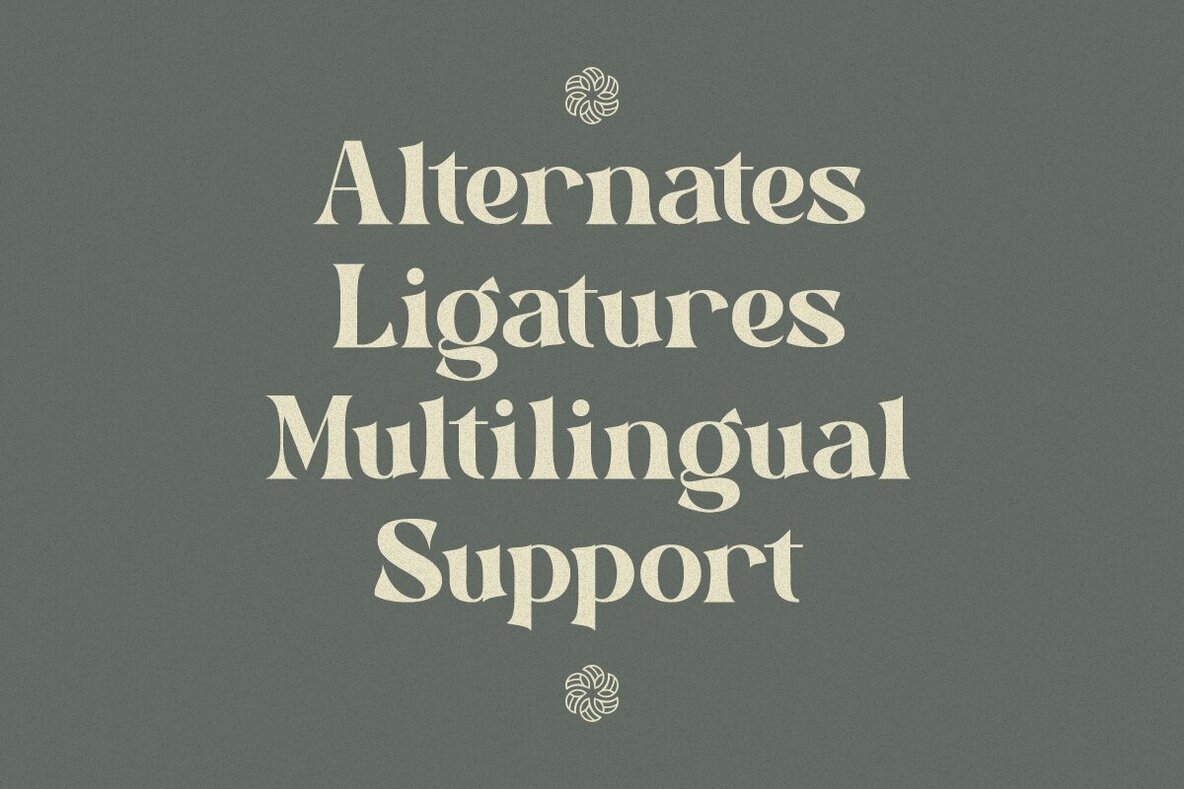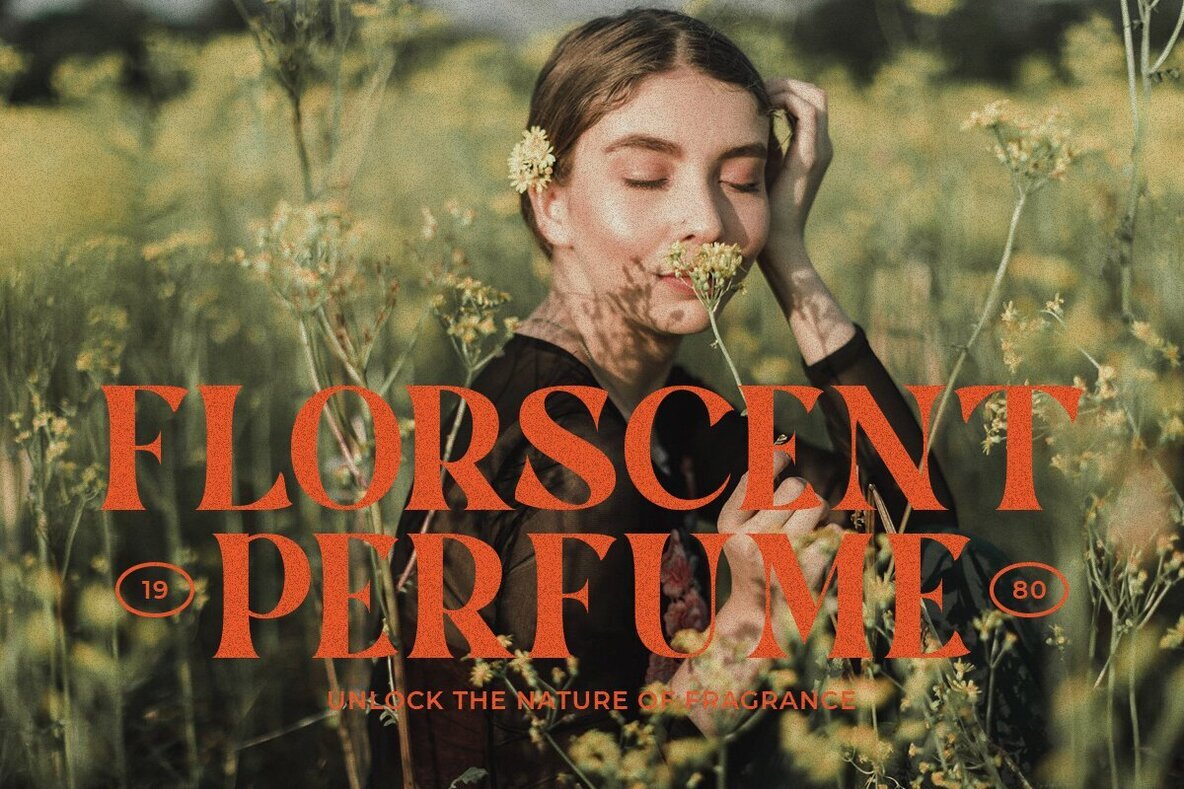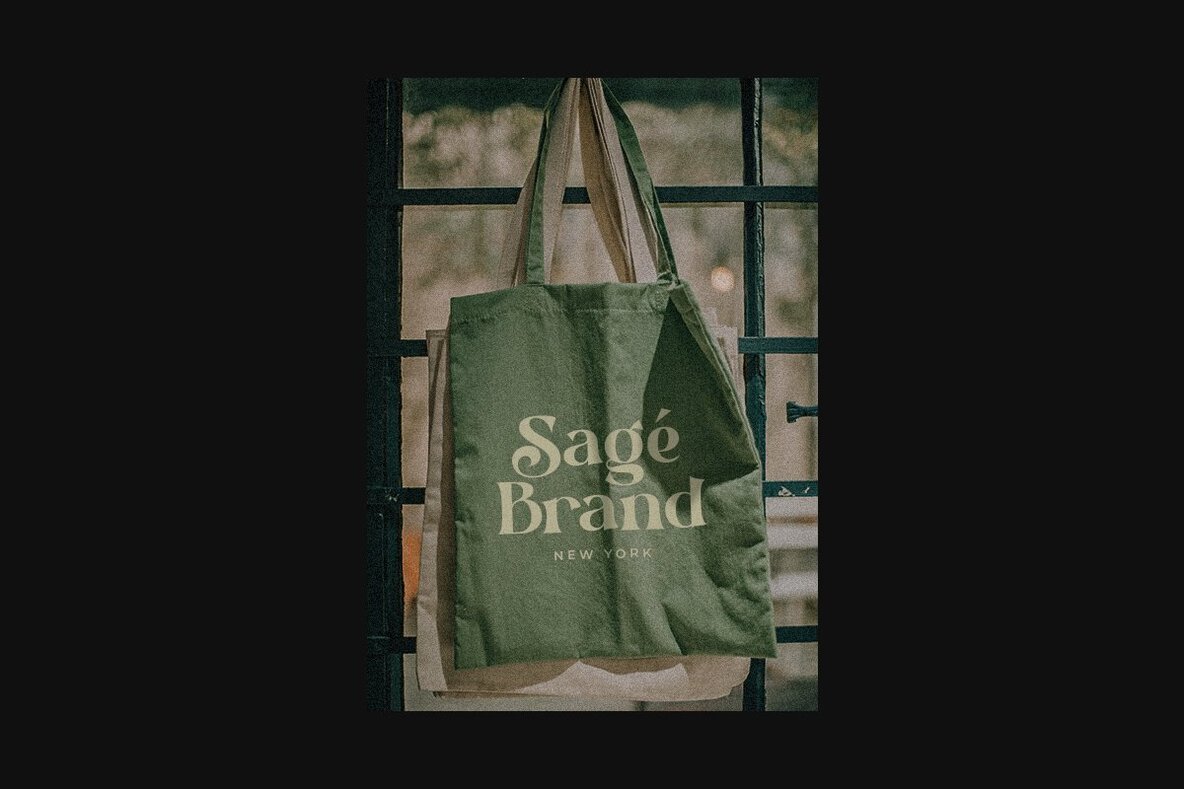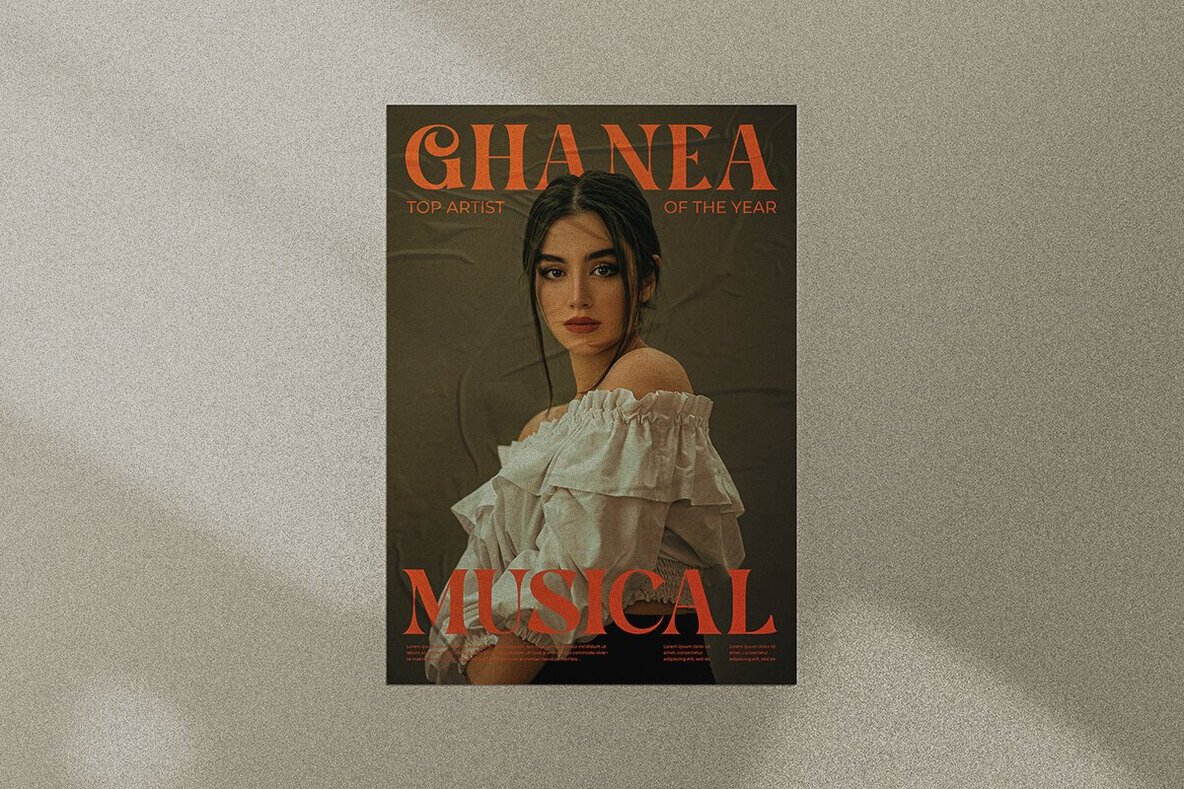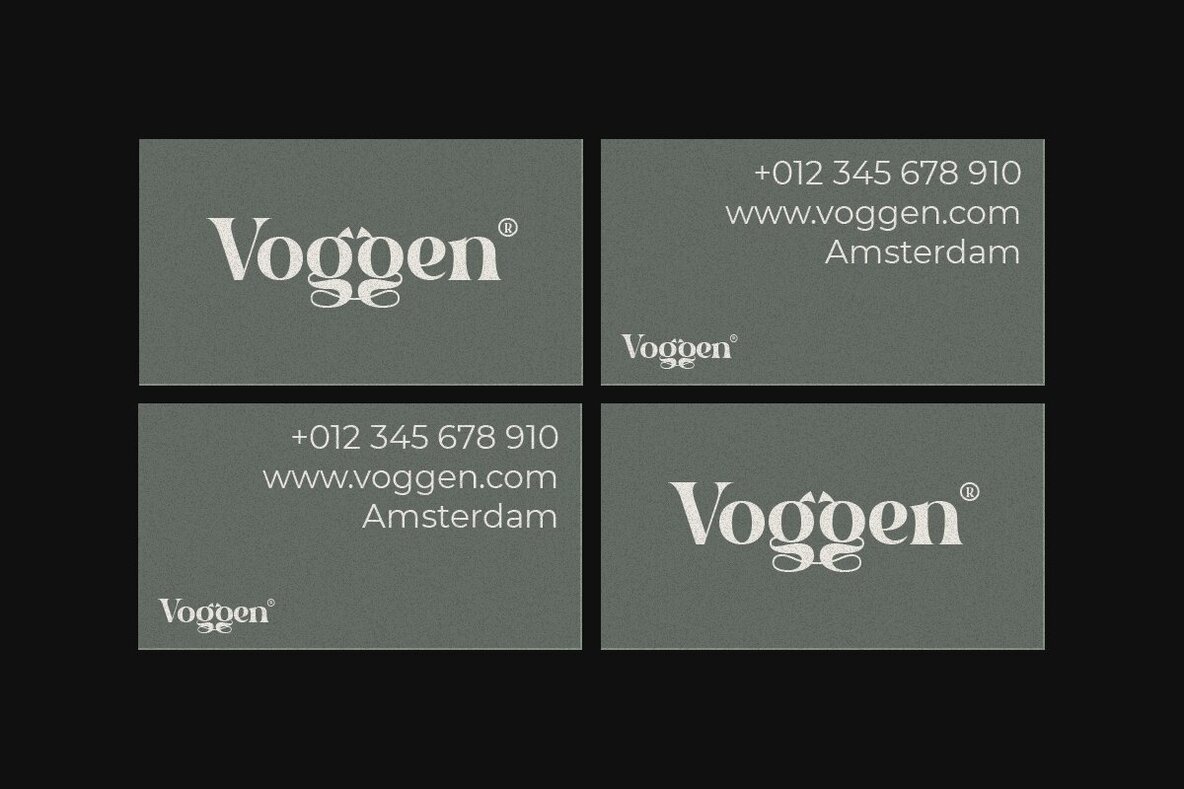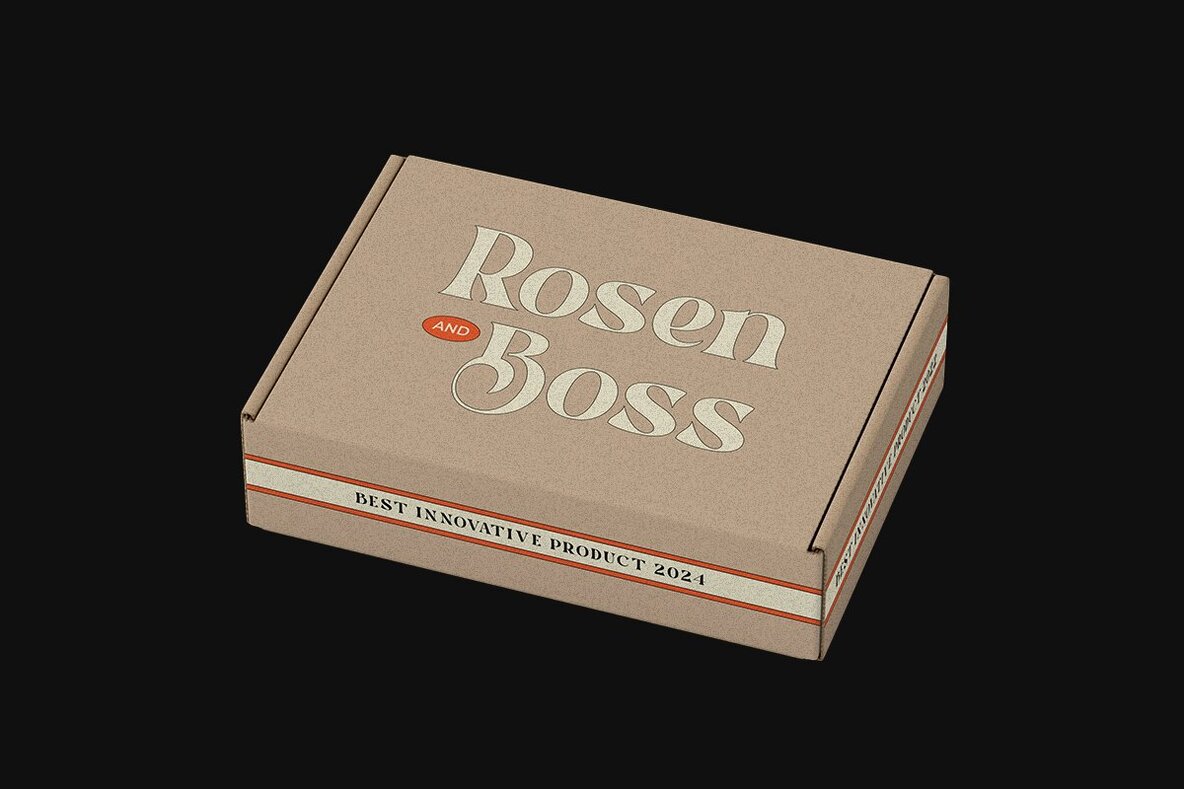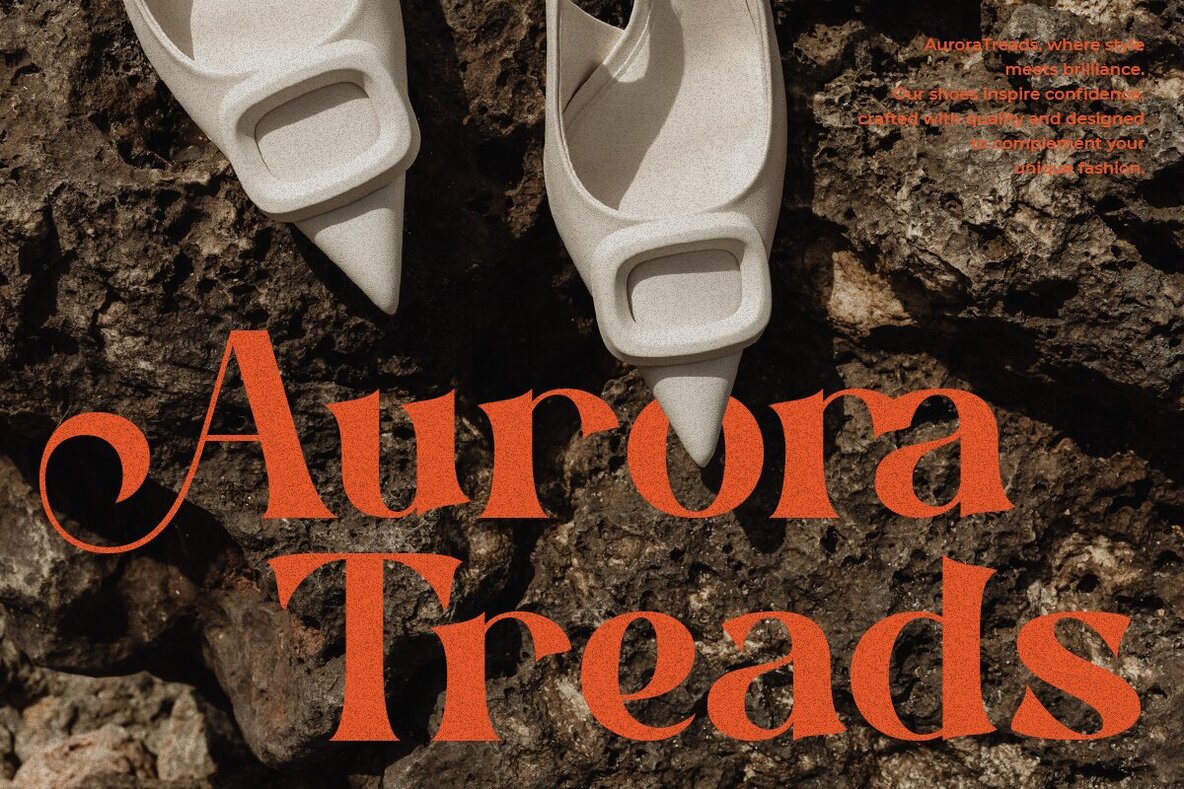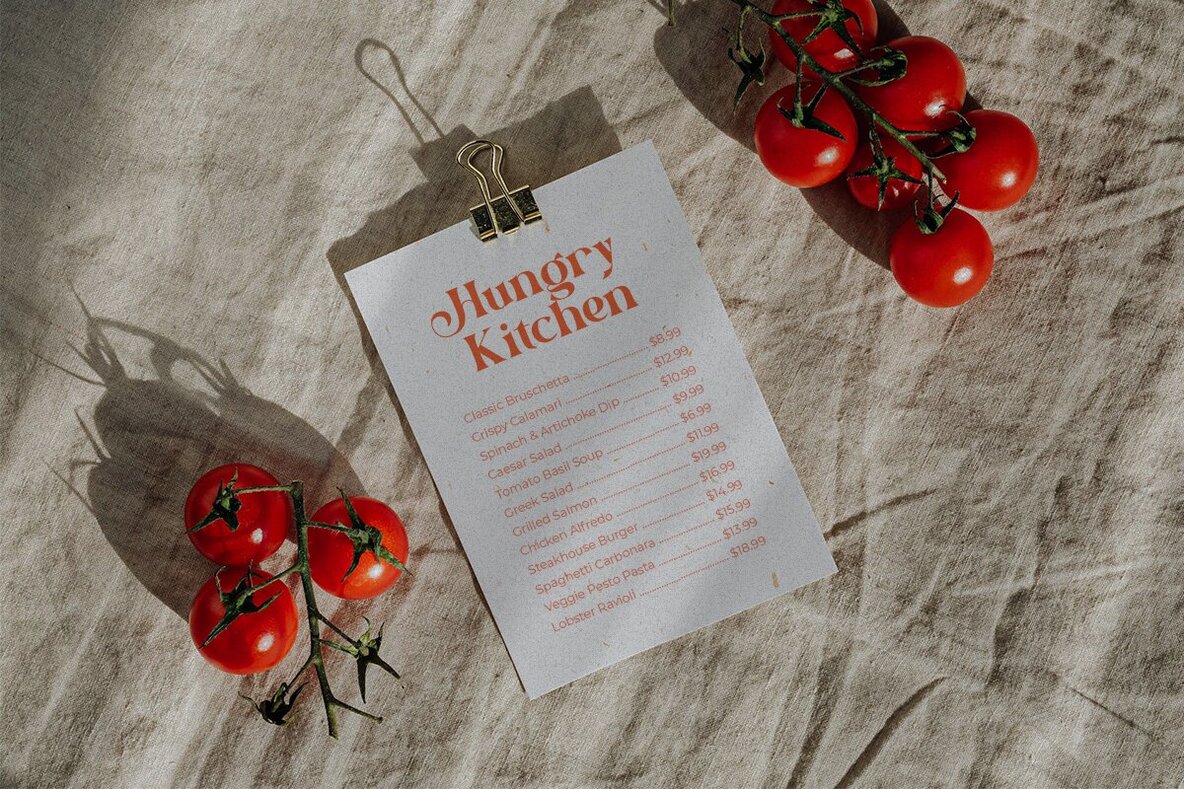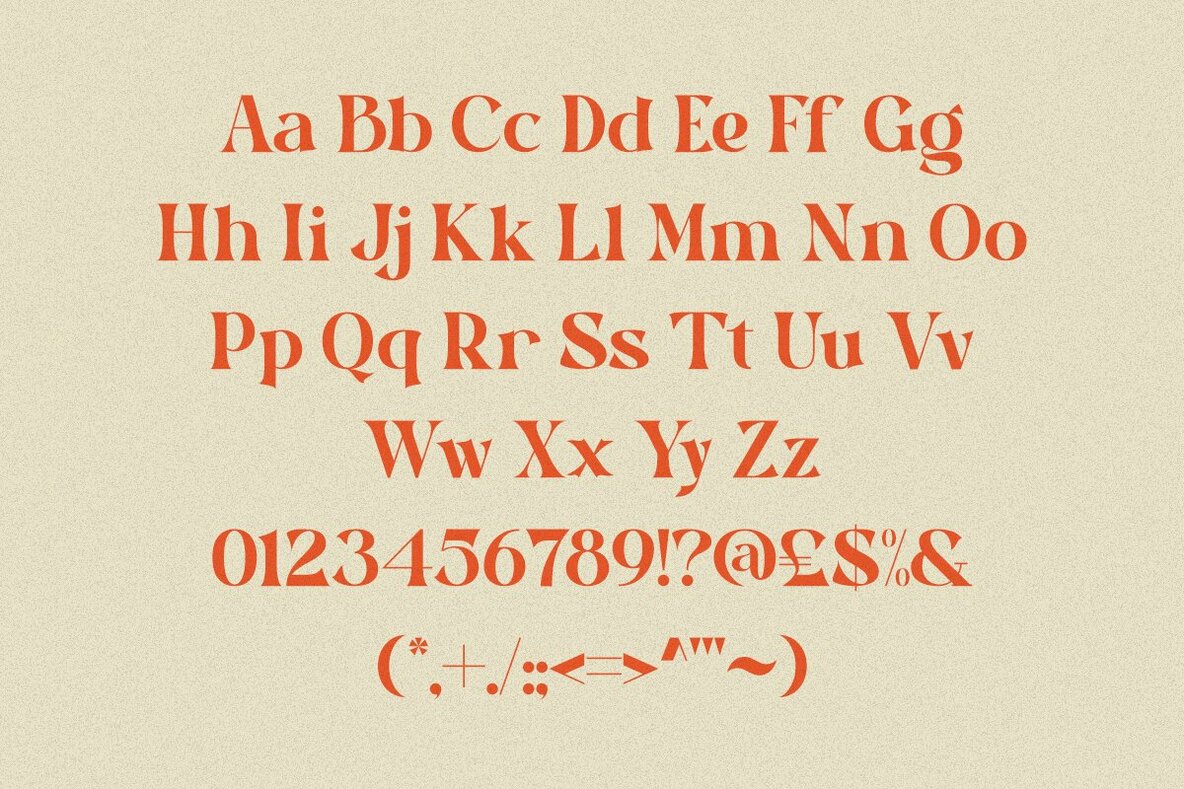
Glow Bloom Font
Glow Bloom Regular
Glow Bloom is a modern, elegant serif typeface designed to bring a touch of luxury and sophistication to your projects. This font offers beautiful alternatives and provides excellent kerning, making it suitable for a variety of applications, including logos, editorial designs, and branding for fashion and cosmetics. It's also ideal for modern advertising, invitation cards, art quotes, home decor, book titles, and special events. If you experience any issues or have suggestions for improvement while using the Glow Bloom typeface, feel free to reach out to us. Your feedback is vital to us as we aim to enhance our offerings continuously. Thank you and have a wonderful day.Glow Bloom: Elegant Serif Typeface with Unique Alternatives
Features of Glow Bloom